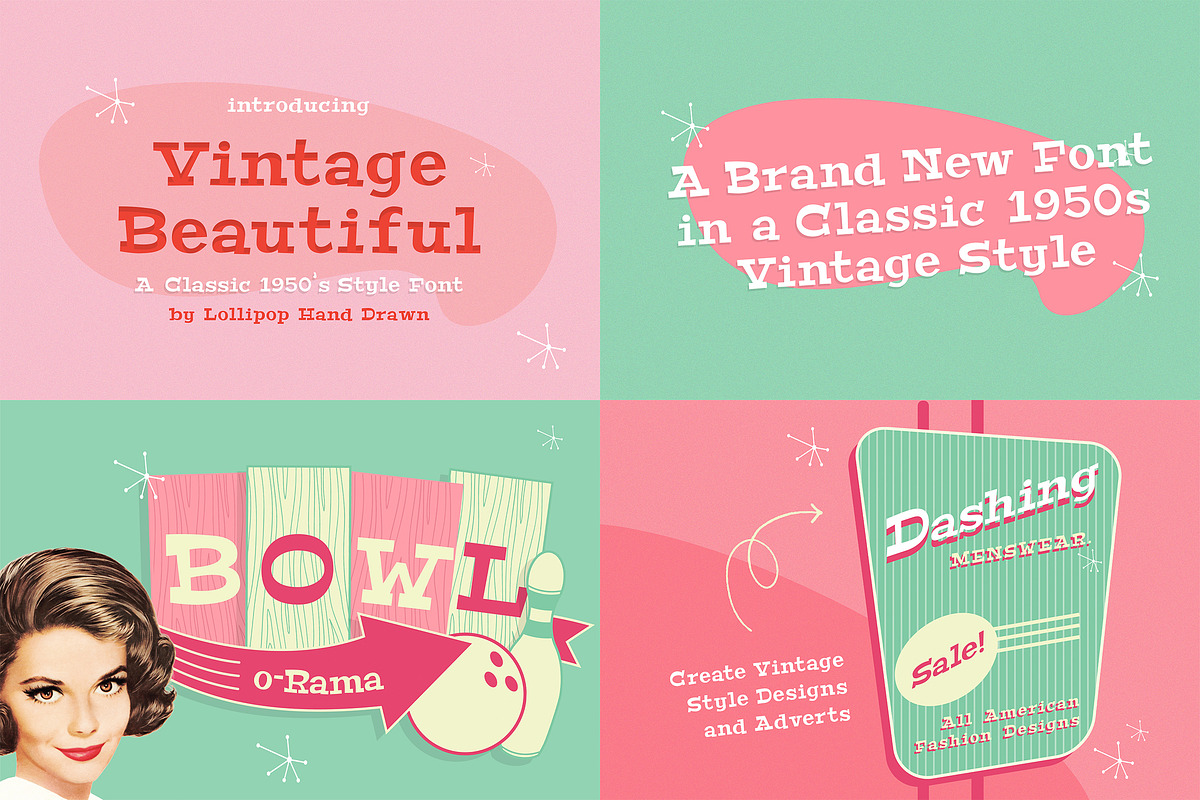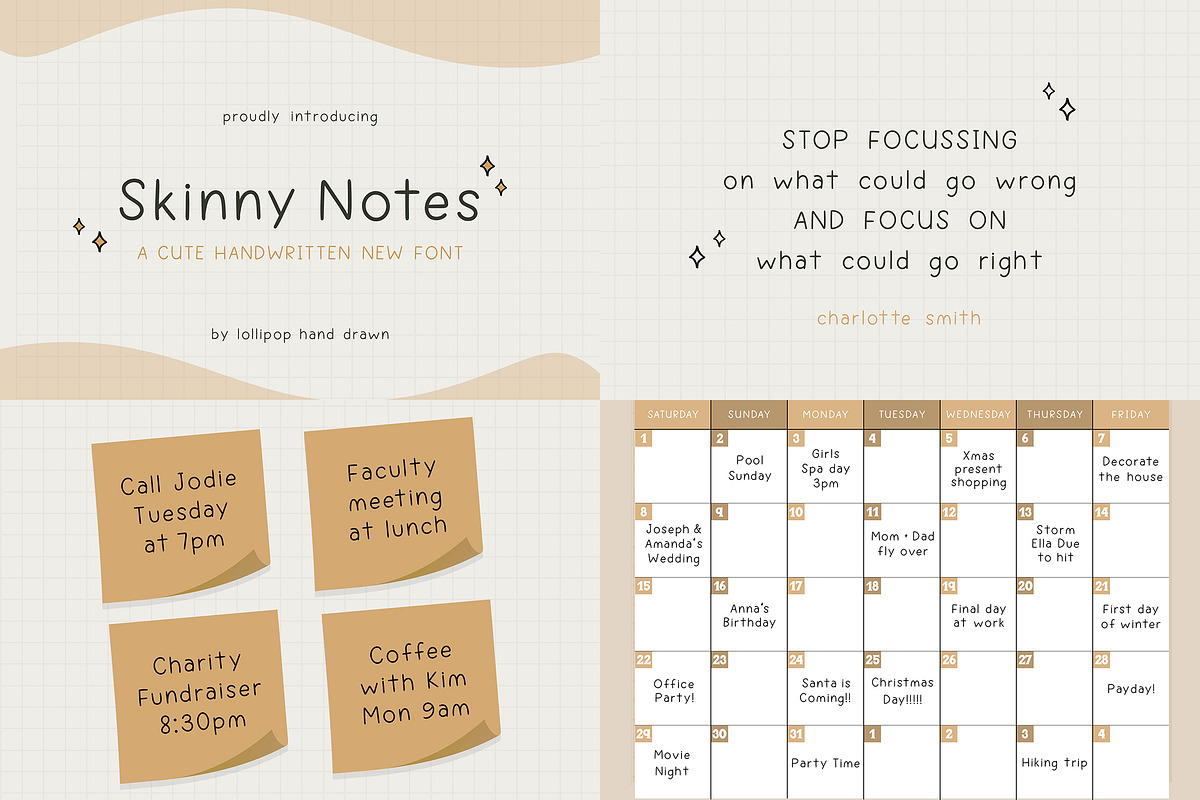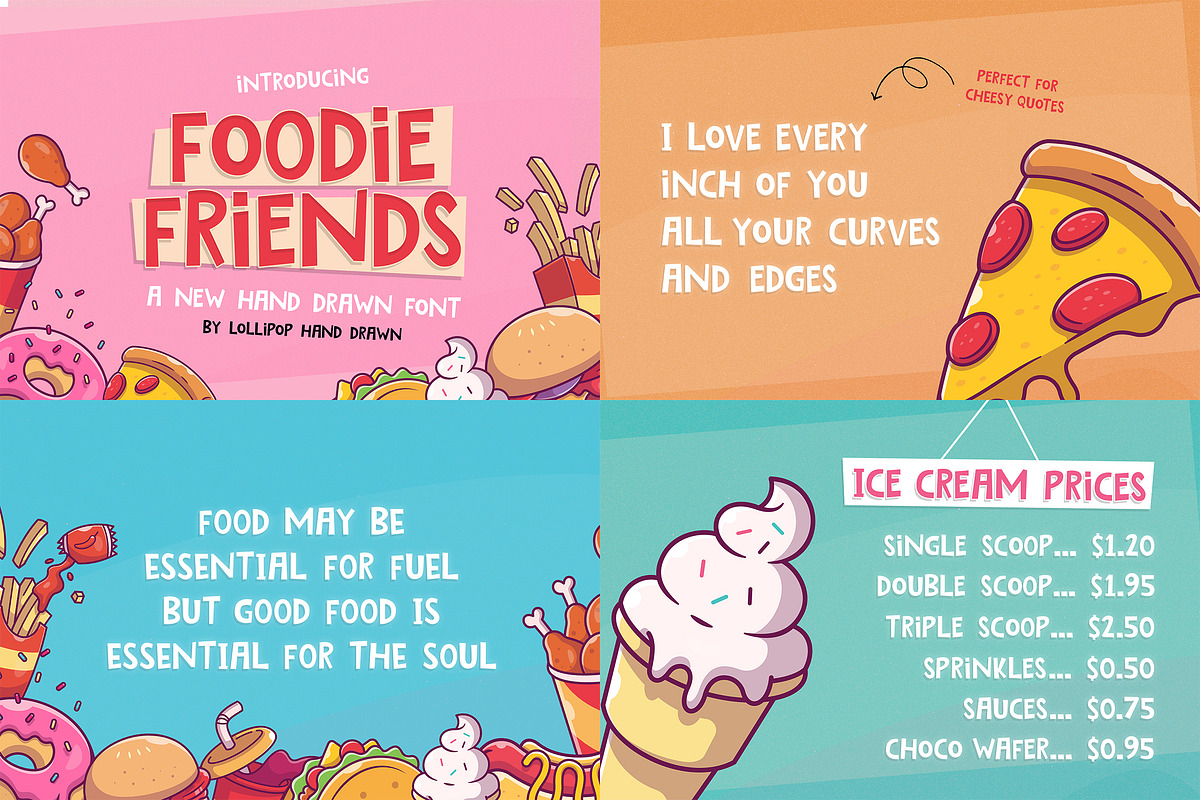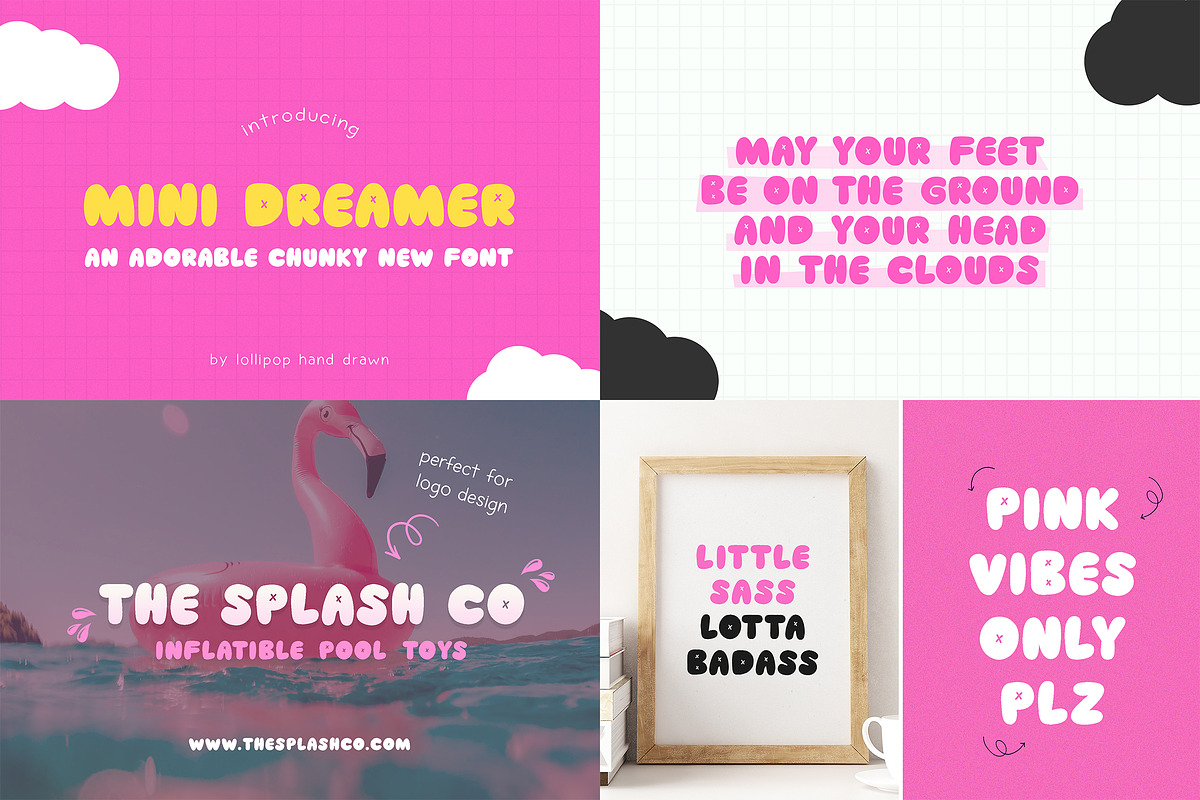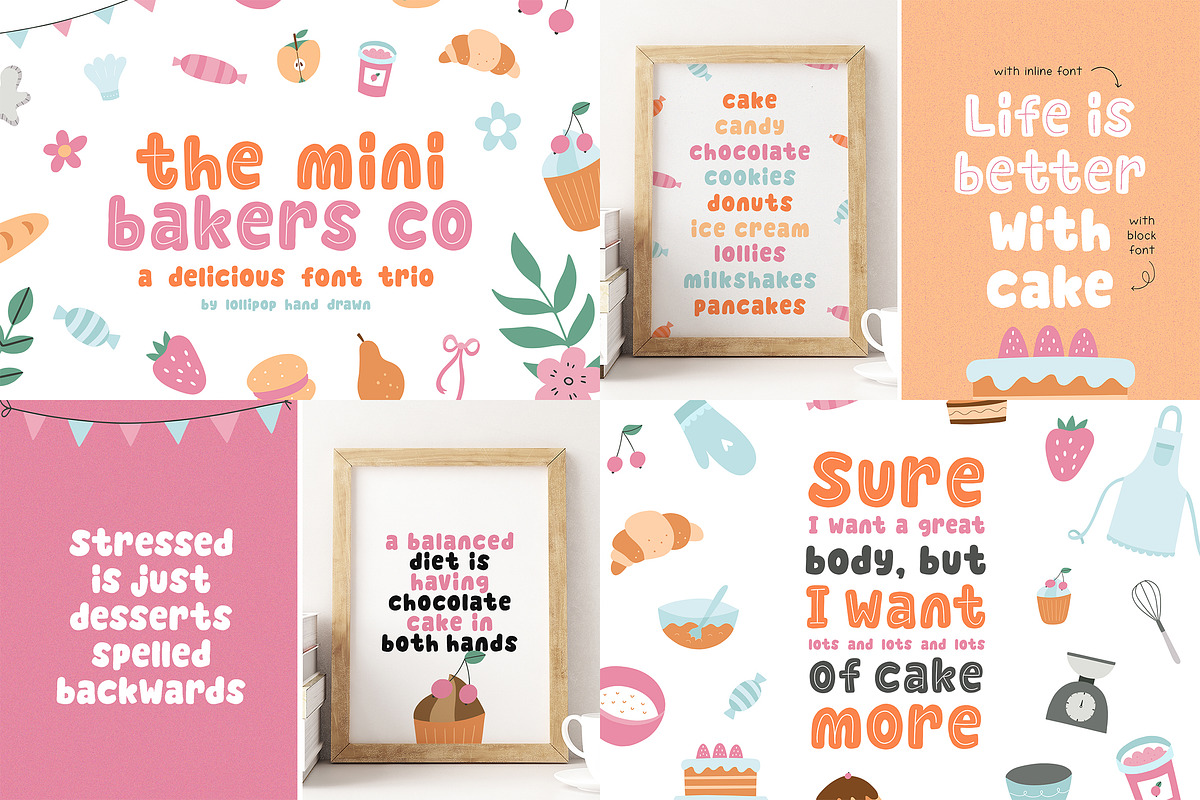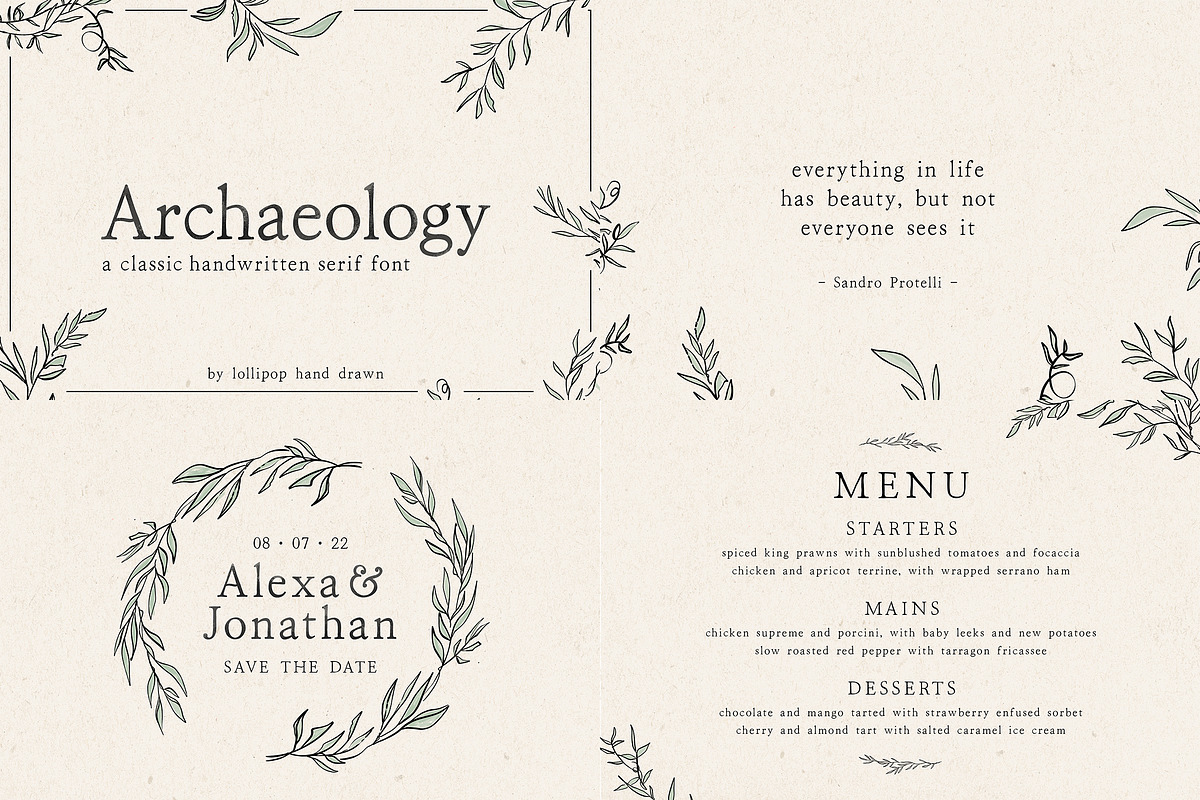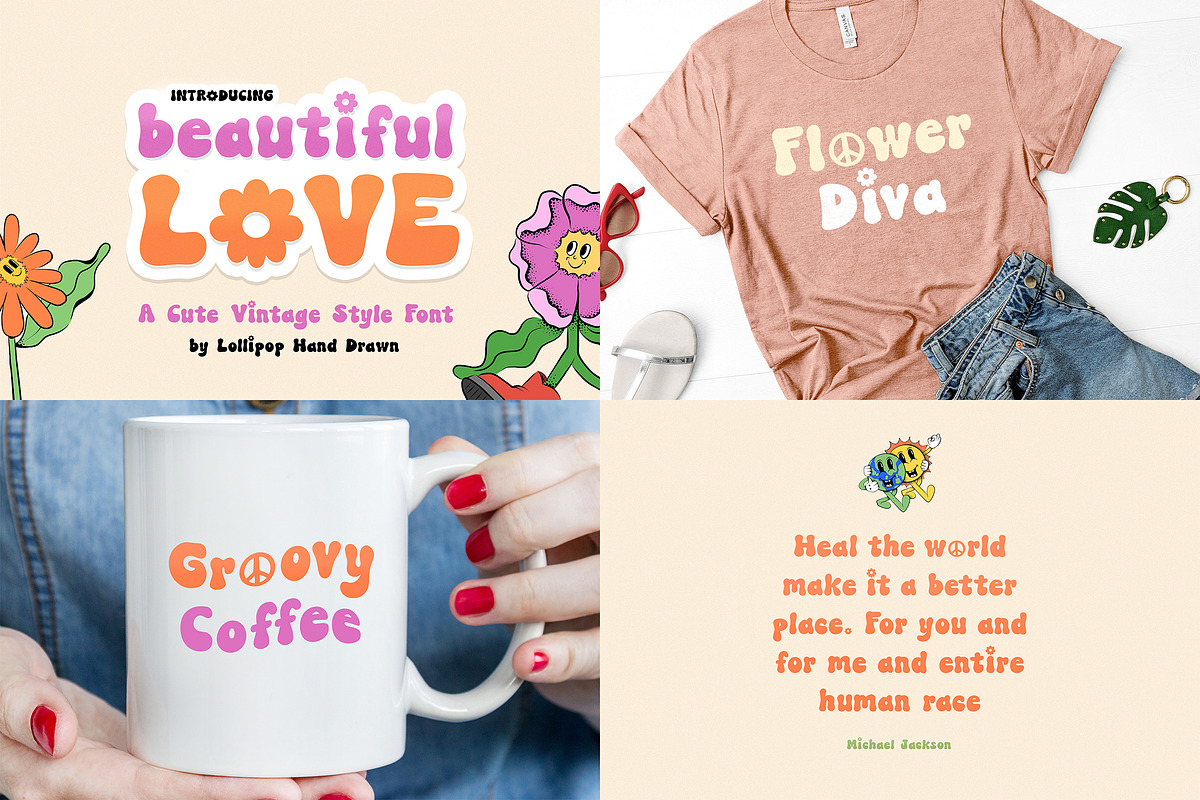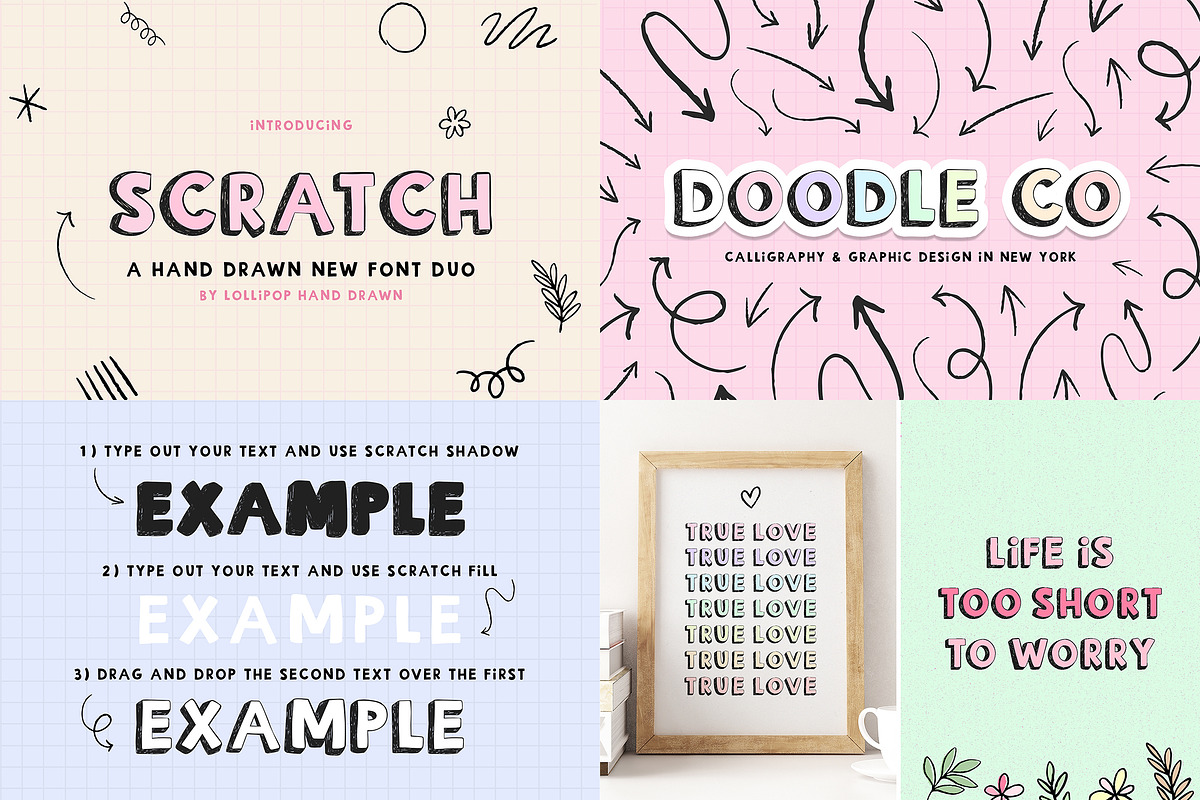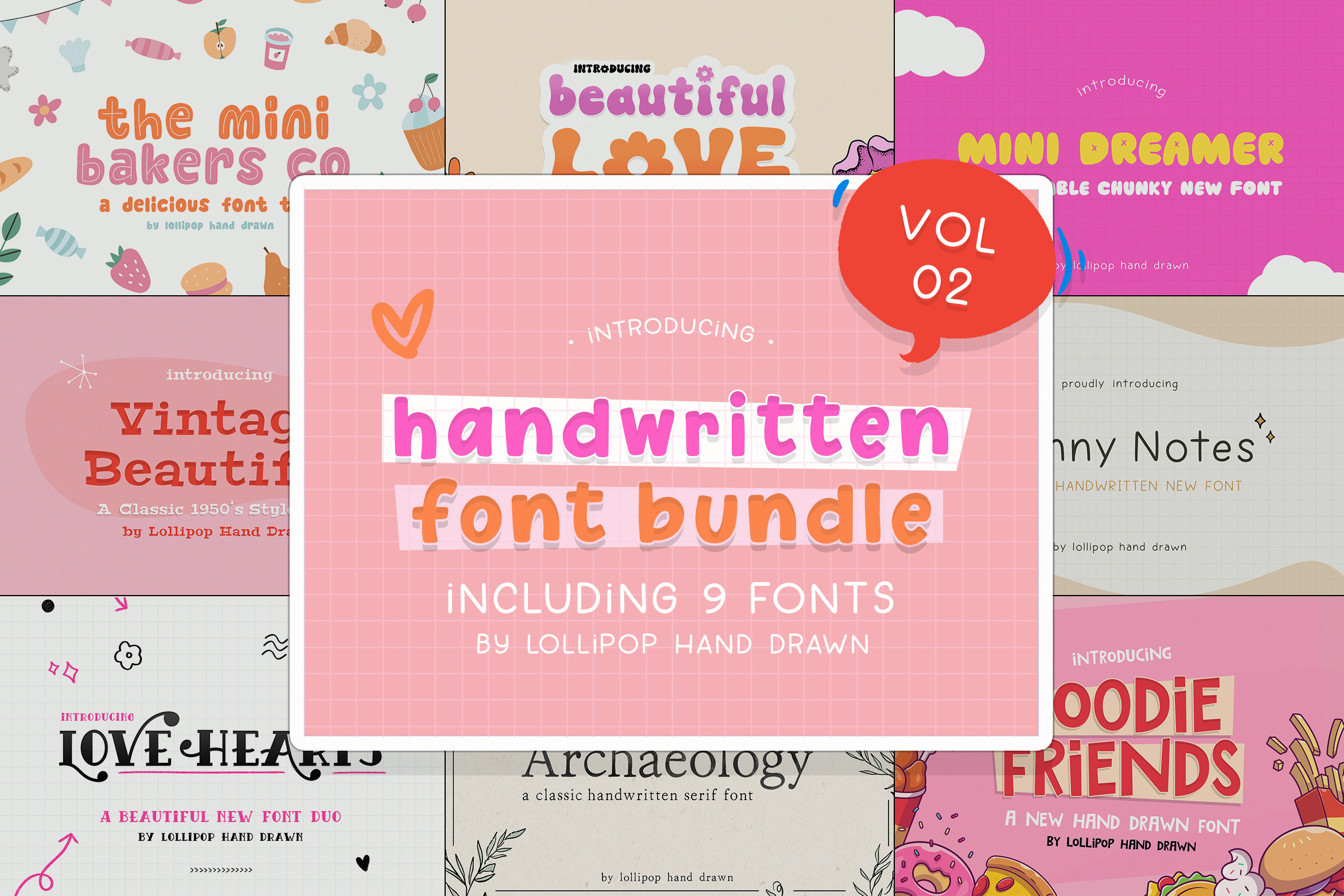
The Handwritten Font Bundle (Vol 02)
Introducing the Handwritten Font Bundle (Vol 02). This adorable pack includes 13 different fonts over 9 different products for ONLY $9! This font bundle works perfectly on a wide range of programs including Microsoft Word, Powerpoint, Cricut, Silhouette, Procreate, Canva Pro, Corjl, Goodnotes and many more.